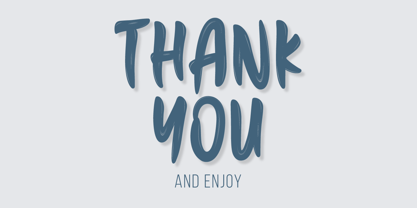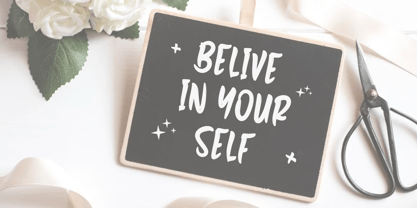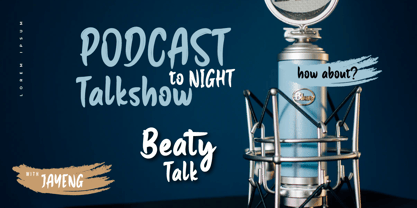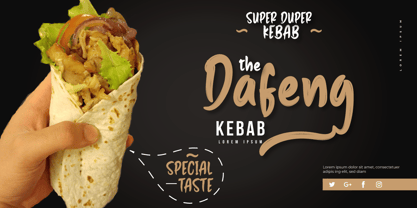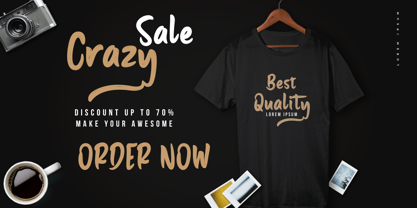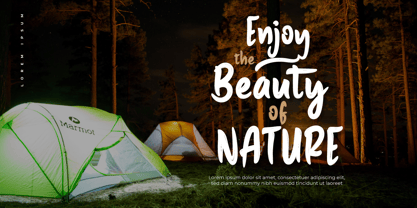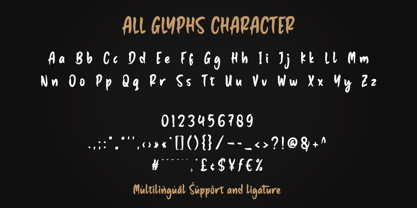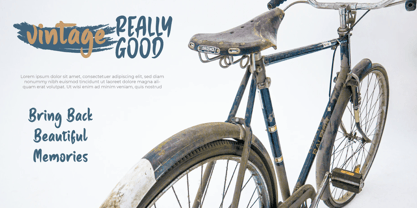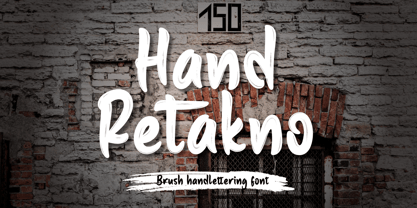
Hand Retakno
The Hand Retakno Font Family was designed by Lita Faolina and published by Product Type. Hand Retakno contains 1 styles.
Hand Retakno is a tranquil and refreshing handwritten font. With smooth lines and gentle characters, this font exudes a sense of calmness and rejuvenation. Suitable for projects looking for a soothing and liberating appearance, such as meditation material designs, postcards, or artworks aiming to bring peace.